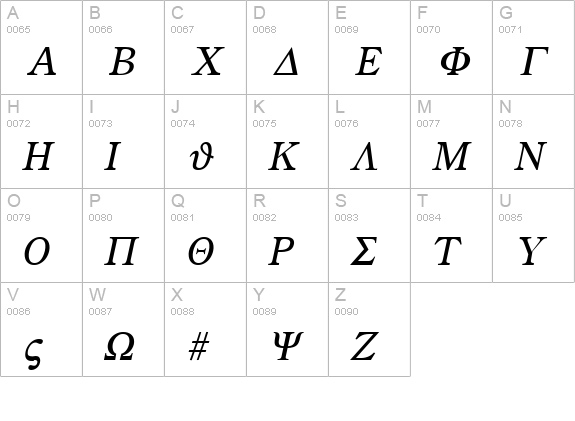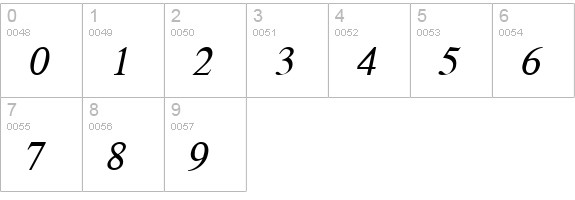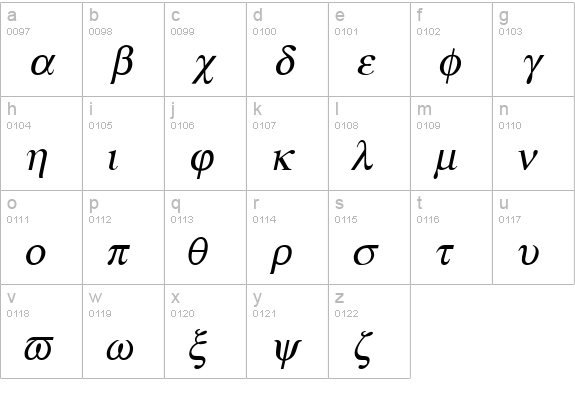
Greek Italic Font Details
Greek Italic is a distinctive, italic variant in the Greek typeface family \xE2\x80\x94 well suited to design and typography projects.
The Greek Italic font is a stunning and elegant typeface that exudes sophistication and style. Its graceful curves and slanted design make it perfect for adding a touch of class to any project. Whether you're creating invitations, branding materials, or website designs, this font will elevate your work to the next level. Best of all, the Greek Italic font is completely free to download at FontsMarket.com. You can access this beautiful typeface without any cost and use it to enhance your creative projects without any restrictions. Don't miss out on this opportunity to add a touch of Greek elegance to your designs with the Greek Italic font. Download it today and start creating stunning visuals that will leave a lasting impression.